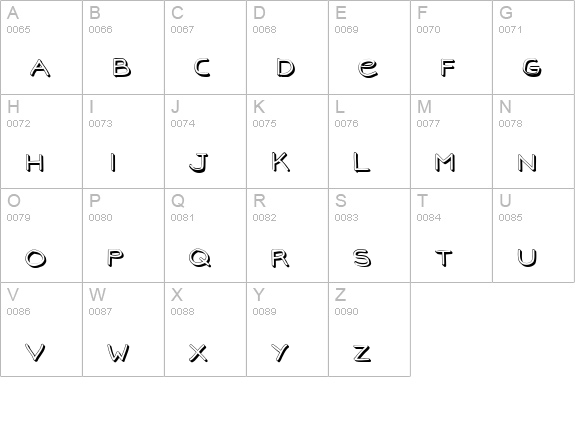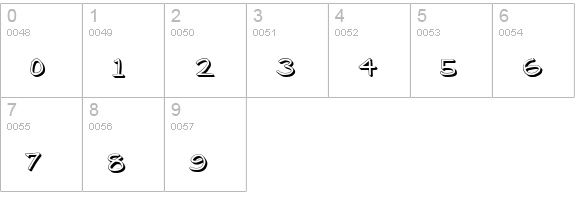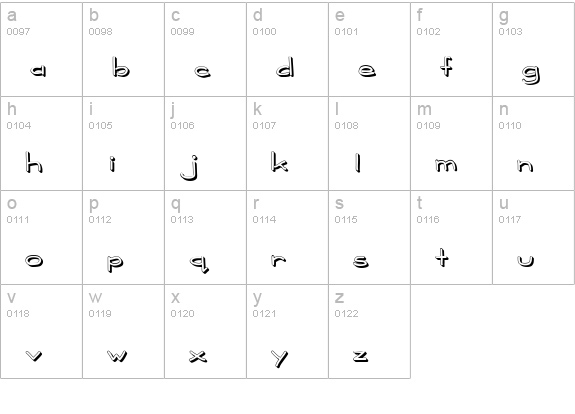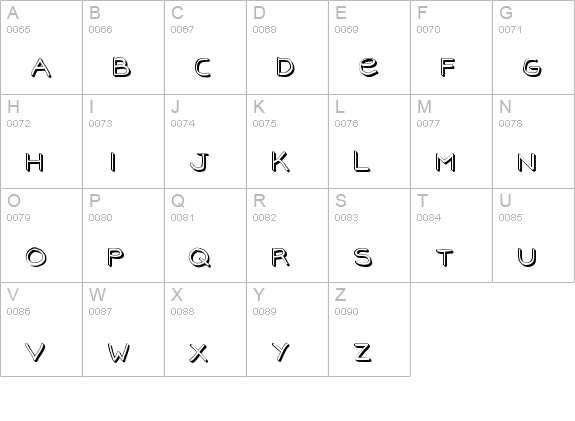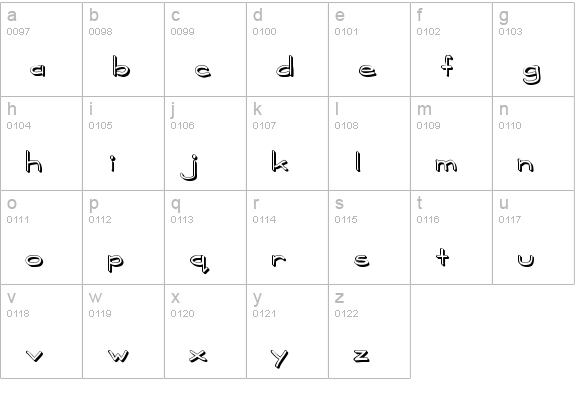
MadisonShadowed Font Details
MadisonShadowed font is a captivating and versatile typeface that brings a touch of mystery and elegance to any design project. Its delicate curves and intricate shadowed details create a stunning visual impact, making it a perfect choice for logos, branding, headlines, and more. This font exudes a timeless charm, blending classic elegance with a contemporary twist. The shadowed effect adds depth and dimension, giving your text a captivating and unique appearance. MadisonShadowed font is carefully crafted to ensure legibility, making it suitable for a wide range of applications. The best part? MadisonShadowed font is available for free! You can easily download this stunning typeface at FontsMarket.com. Whether you're a professional designer or a creative enthusiast, this font offers endless possibilities to elevate your projects to the next level. With its seamless blending of style and readability, MadisonShadowed font is sure to make a lasting impression. Its versatility and charm make it suitable for various design purposes, including invitations, posters, packaging, and more. Don't miss out on this incredible opportunity to enhance your designs with MadisonShadowed font. Download it for free at FontsMarket.com and unlock a world of creativity and elegance.